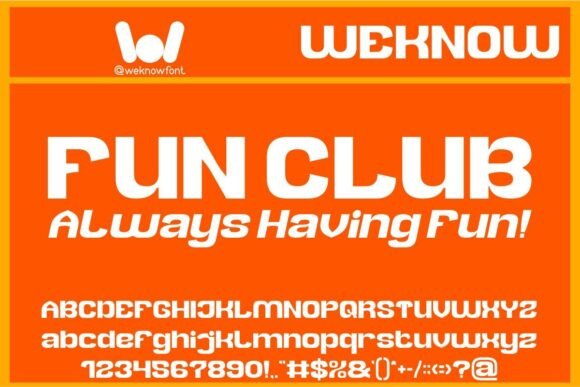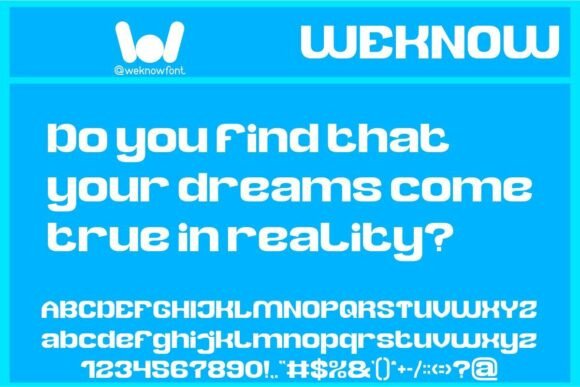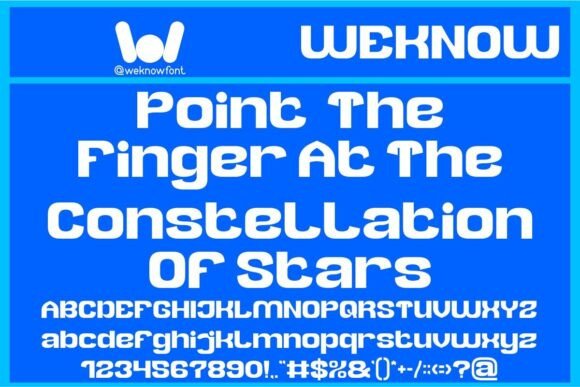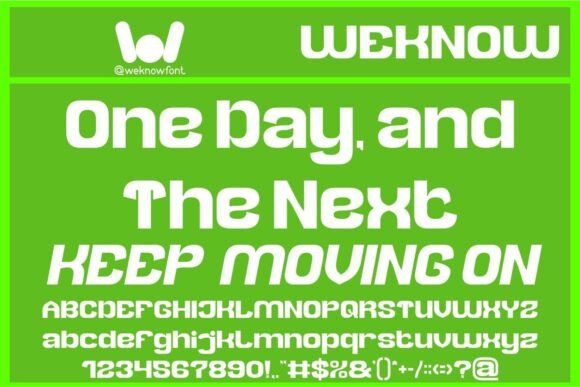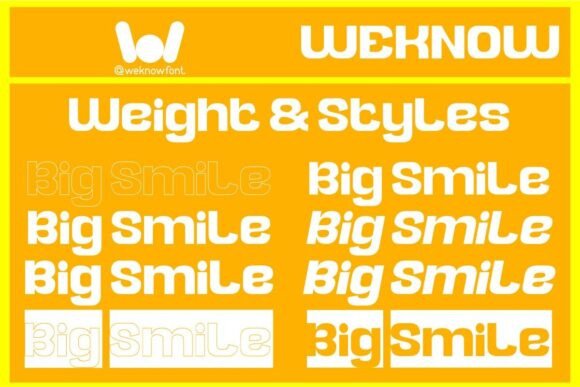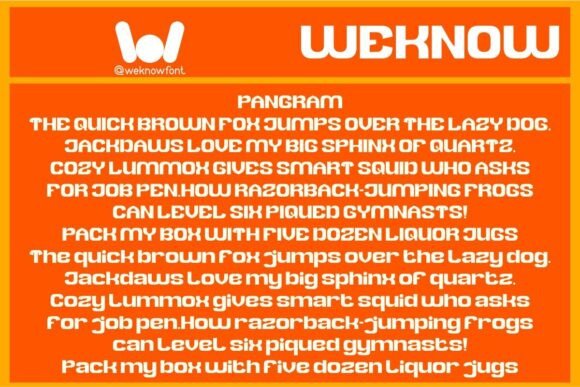
Introduction to Big Smile Font
Introducing “Big Smile,” a robust and refined sans serif font radiating simplicity and elegance.
With its bold texture, it’s a charismatic choice for business identities, underscoring a sophisticated corporate presence Ideal for headline crafting, the strong undertones of this display font instantly elevate brand personas.
Key Features of Big Smile Font
Why Choose Big Smile Font?
Big Smile Font offers exceptional quality and versatility, making it a valuable addition to your design toolkit. Whether you’re creating for personal projects or commercial use, Big Smile Font delivers professional results.